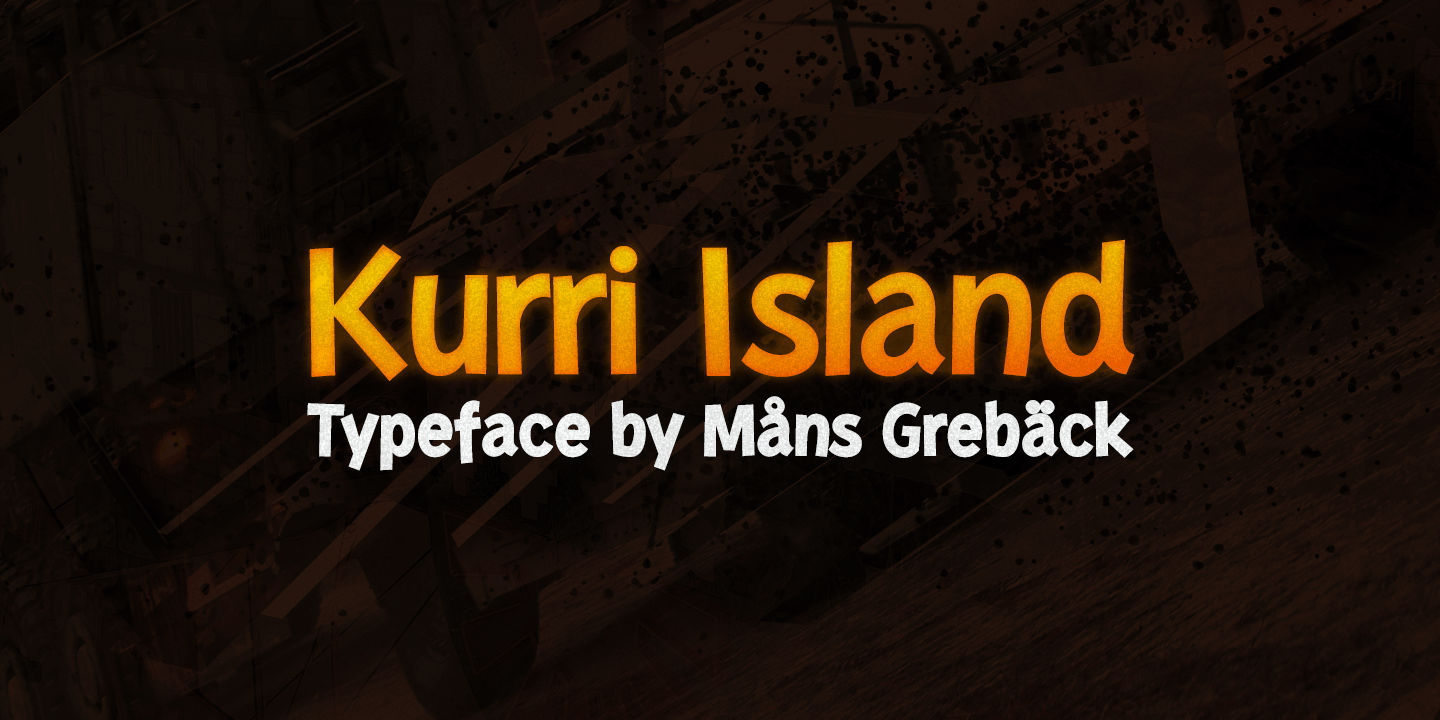
The Kurri Island Font Free Download is perfect for travel posters, tropical-themed branding, social media posts, and packaging designs, delivering a playful, exotic vibe.
This font is exciting because its bold, hand-drawn style and tropical flair infuse energy and warmth into any creative project.
The Kurri Island family includes Regular, Bold, and Condensed styles, providing versatility for diverse design applications.
Elevate your projects with the Kurri Island Font Free Download, a typeface that captures the essence of adventure and sunny escapes. Ideal for crafting vibrant headlines or eye-catching logos, this font brings a unique, handcrafted charm to your designs. Its lively letterforms and bold aesthetic make it a standout choice for brands aiming to evoke a sense of wanderlust. The Kurri Island performs flawlessly across digital and print media, ensuring sharp visuals on websites, apps, or merchandise. As 2025 design trends embrace bold, expressive typography, downloading Kurri Island Font Free Download positions you to create captivating, trend-forward content. Test it today to explore its dynamic potential, and consider purchasing for commercial use to fully harness its adventurous spirit in your next masterpiece.